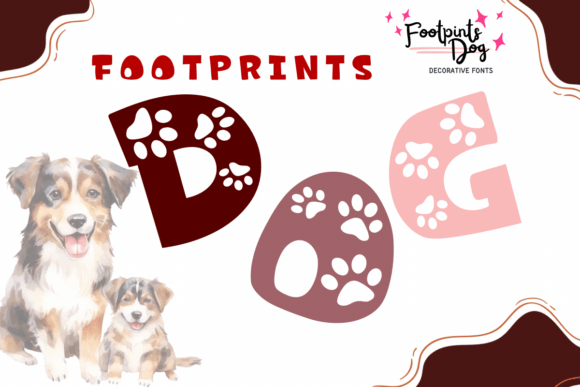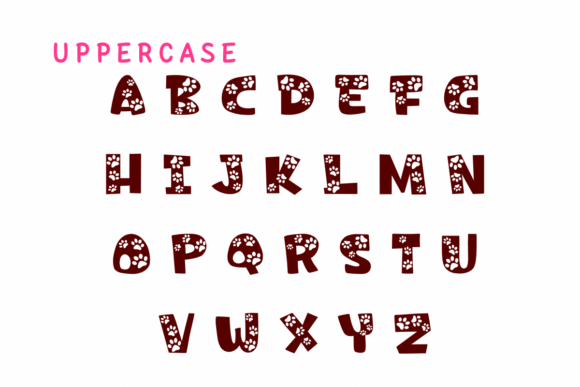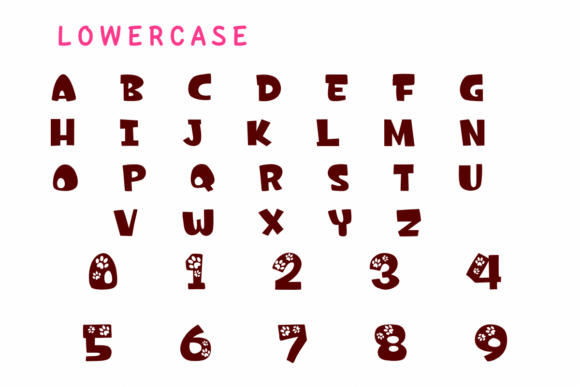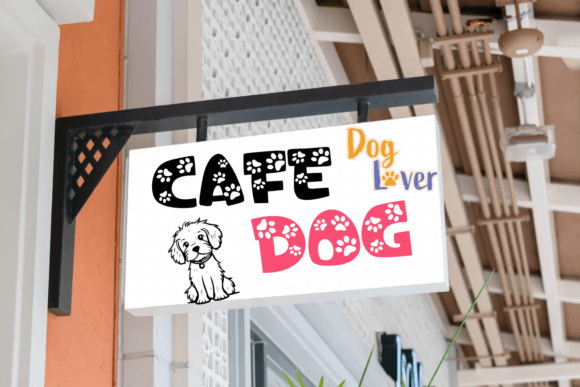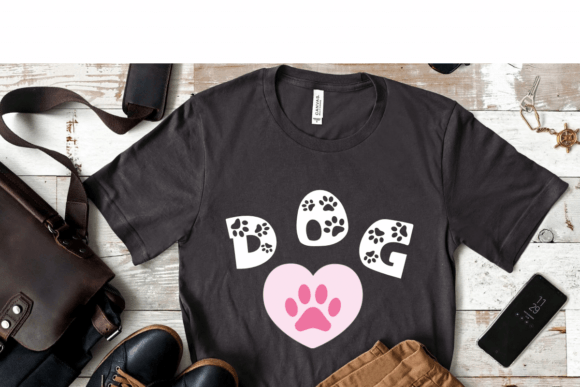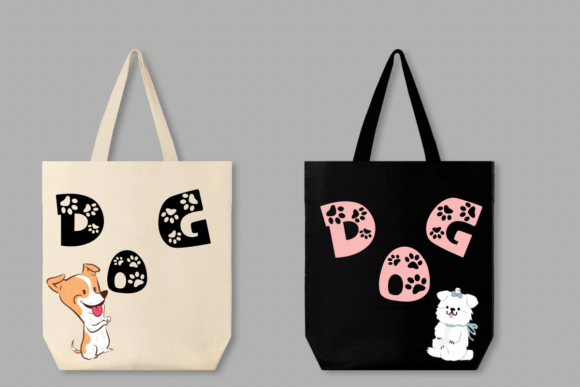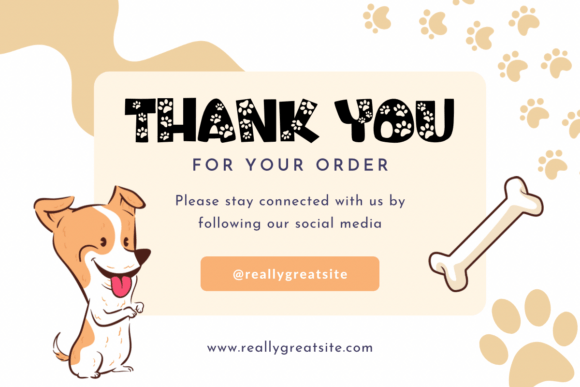
The Joy of Whimsical Typography: Footprints Dog Font
Have you ever stumbled upon a font that instantly transports you to a world of creativity and playfulness? For me, that moment came when I discovered the Footprints Dog Font. Its adorable, hand-drawn style and charming imperfections make it a perfect addition to any design project.
The Footprints Dog Font is a decorative font designed to add a touch of personality to your creations. Whether you’re taking notes, writing a diary, or making greeting cards, this font is sure to bring a smile to your face. But its value extends far beyond these uses – it’s also a versatile tool for designers looking to add a unique touch to their work.
As a designer, the Footprints Dog Font offers endless possibilities for creativity and self-expression. From social media posts to mugs and shirts, this font can elevate any design project with its whimsical charm.
Key Features of Footprints Dog Font
- Unique Characteristics: Features a playful, handwritten style with a personal touch, perfect for adding a touch of warmth and personality to designs.
- Legibility: Easy to read, even at smaller sizes, making it suitable for a wide range of applications, including body text and headings.
- Style Variations: Includes a range of style variations, including bold, italic, and regular, to provide flexibility and customization options.
Designer Review: Footprints Dog Font
Overall, I think the Footprints Dog Font has some nice qualities that make it a great choice for pet-related designs, but it also has some limitations that prevent it from being a top-notch font.
- Pawsome personality: The font has a playful, energetic feel that’s perfect for pet owners and animal lovers.
- Customizable: The font offers a range of customization options, including color and size, to help you tailor it to your design needs.
- Cute details: The font’s design includes fun details like paw prints and bones that add a touch of whimsy to your designs.
- Limited legibility: At small font sizes, the letters can become difficult to read, which may be a problem for certain design applications.
- Not suitable for formal designs: The font’s playful nature makes it more suitable for casual or creative designs, rather than formal or professional ones.
- Lack of versatility: While the font is great for pet-related designs, it may not be as versatile as other fonts for other types of designs.
Overall, I think the Footprints Dog Font is a great choice for pet owners and animal lovers who want to add a playful touch to their designs. However, it may not be the best choice for more formal or professional designs.
“Footprints Dog Font” is perfect for:
- Custom pet tags and collars.
- Pet-themed invitations and party decorations.
- Personalized pet accessories and gifts.
Q: Does Footprints Dog Font include any special characters or glyphs?
Yes, Footprints Dog Font includes a range of special characters and glyphs, including ligatures, swashes, and alternates. These can be accessed using your design software’s font features or by using the font’s built-in OpenType features.